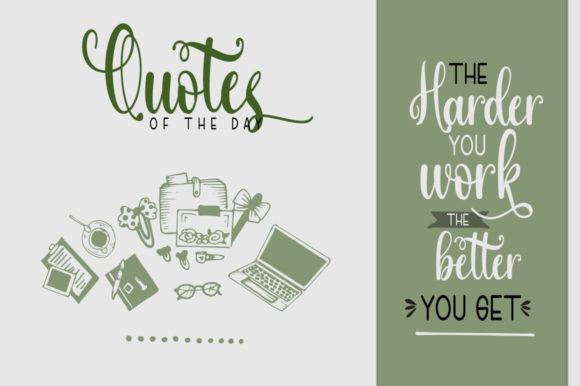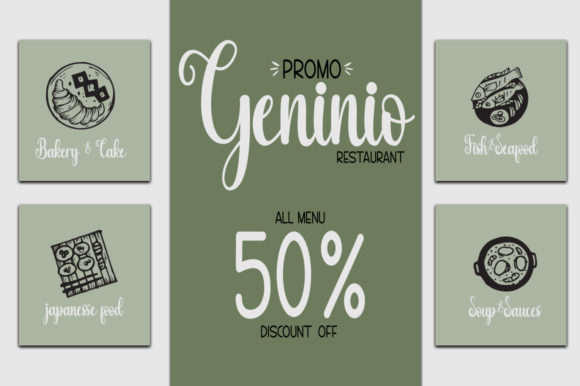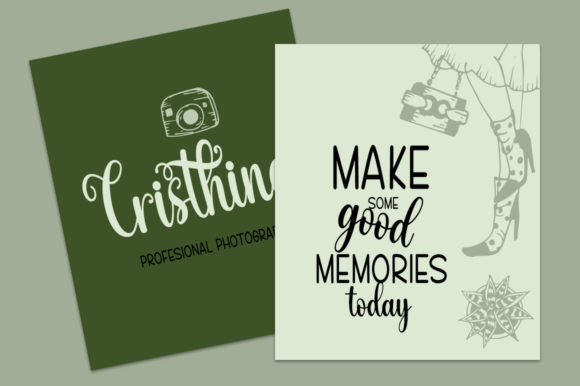
Introduction to Love Vallentina Duo Font
Have you ever been stuck on a creative project, desperately searching for the perfect design resource to elevate your idea to the next level? I’m sure we’ve all been there – staring blankly at a blank canvas, hoping to spark some inspiration. For designers, finding that elusive combination of style and substance can be a game-changer. That’s where the Love Vallentina Duo Font comes in, a stunning pair of script and handwritten fonts that will breathe new life into your designs.
With its beautiful, flowing characters that dance along the baseline, this high-quality font is sure to make a lasting impression. Whether you’re working on a free download or a commercial project, the Love Vallentina Duo Font is an invaluable asset for any designer looking to add a touch of elegance and sophistication to their work.
- High-quality design resource suitable for creative projects, including wedding invitations, greeting cards, and more.
- Comes in a duo font style, perfect for pairing with other fonts to add a touch of elegance and sophistication.
- Perfect for designers looking for a unique and creative font to add a personal touch to their projects.
Honest Review: Love Vallentina Duo Font
As a designer, I’ve had the pleasure of working with a wide range of fonts, but the Love Vallentina Duo Font has truly caught my eye. This high-quality design resource is perfect for any creative project that requires a touch of elegance and sophistication.
One of the standout features of the Love Vallentina Duo Font is its versatility. The font is available in both regular and bold weights, making it easy to use in a variety of contexts. The transparent background also makes it a breeze to customize and layer over other design elements.
Here are some of the things that work well with the Love Vallentina Duo Font:
- ✨ High-quality design with a wide range of characters and glyphs
- ✨ Perfect for creative projects that require a touch of elegance and sophistication
One of the limitations of the Love Vallentina Duo Font is that it may not be suitable for projects that require a more modern or edgy feel. The font’s classic design may come across as too traditional for some projects. ⚠️
Overall, I’m thoroughly impressed with the Love Vallentina Duo Font. It’s a great addition to any designer’s toolkit, and I highly recommend it for any project that requires a touch of sophistication and elegance.
The Love Vallentina Duo Font is a high-quality design resource perfect for creative projects. Its elegant and modern design makes it a popular choice among designers.
The Love Vallentina Duo Font is commonly used for:
Wedding invitations and stationery.
Branding and logo design.
Business cards and marketing materials.